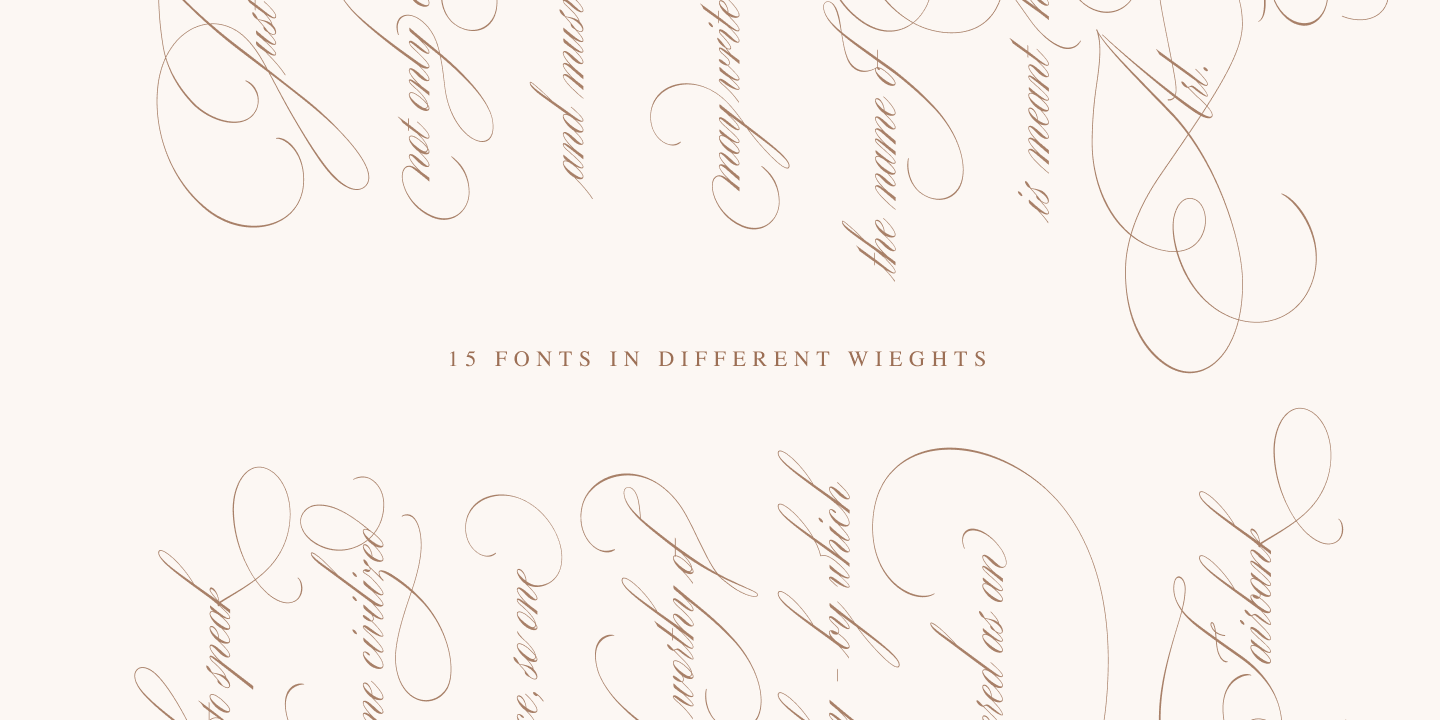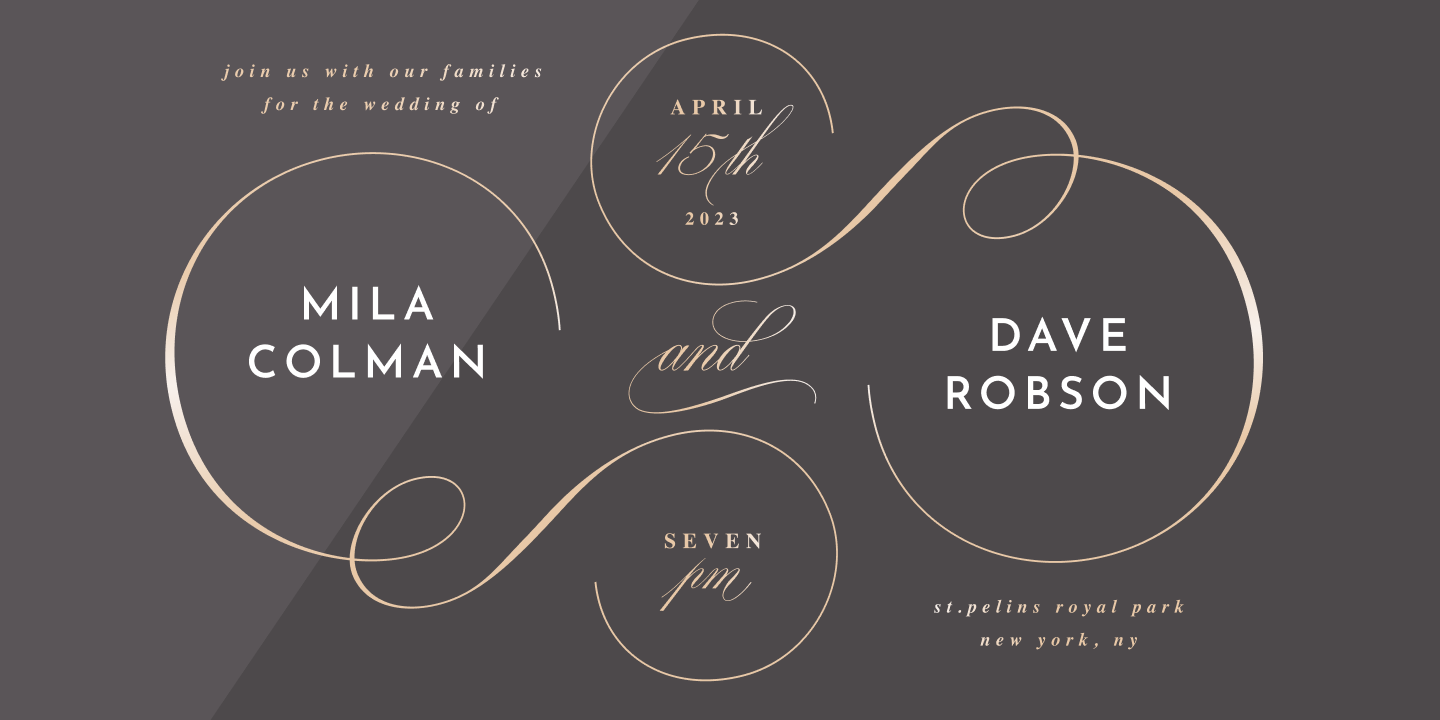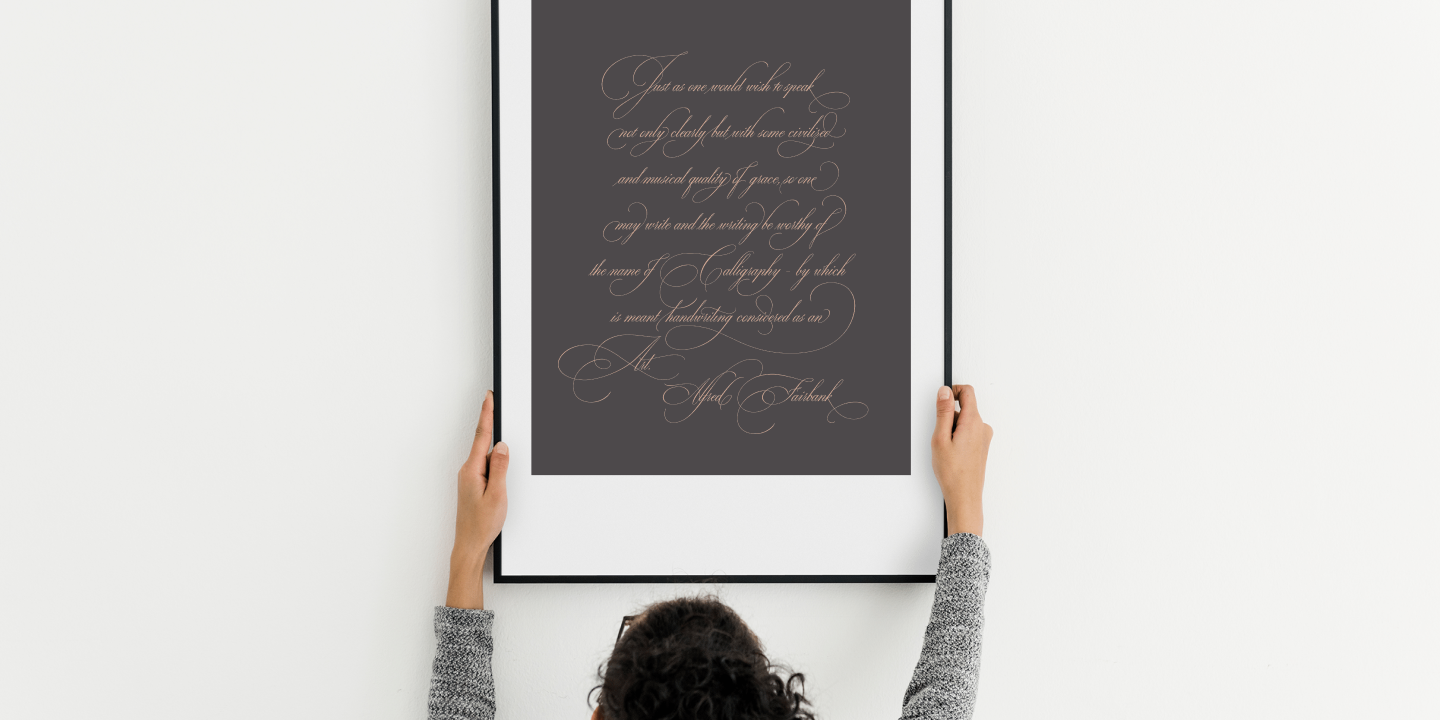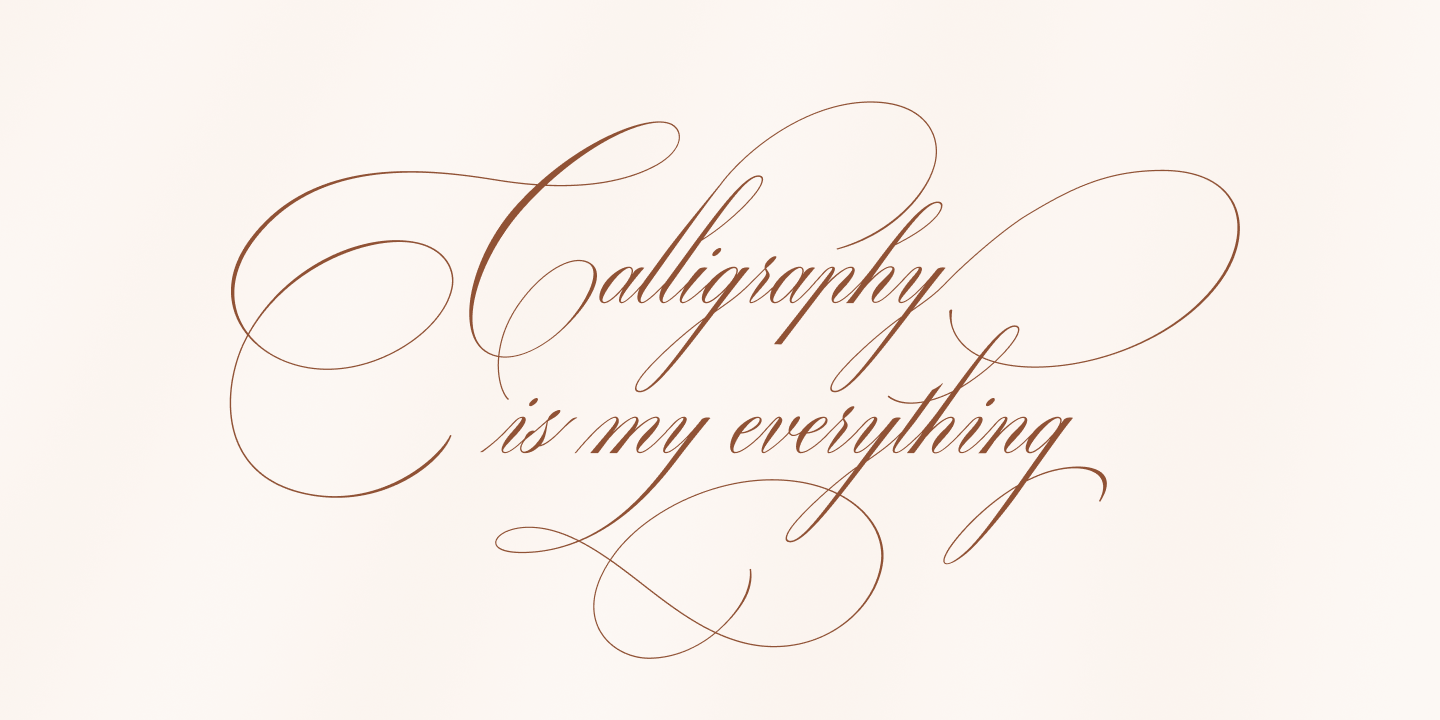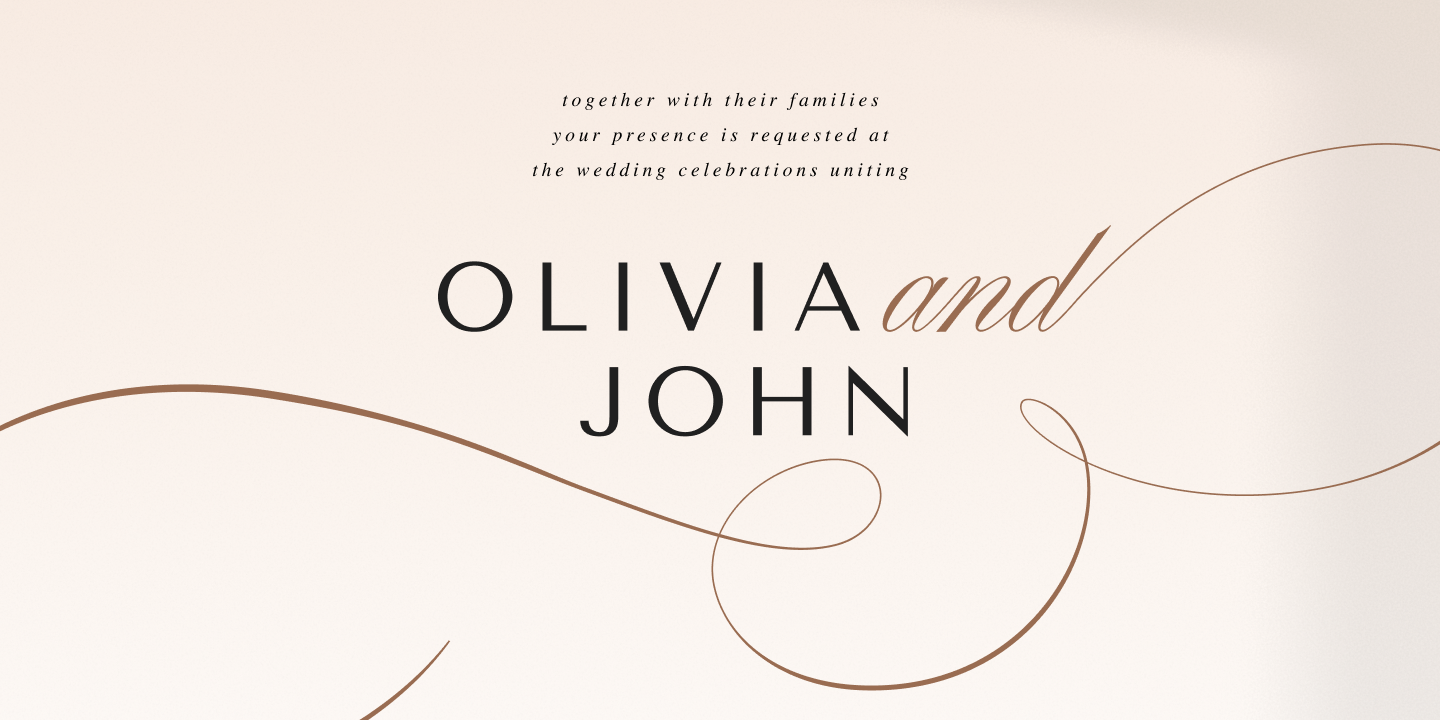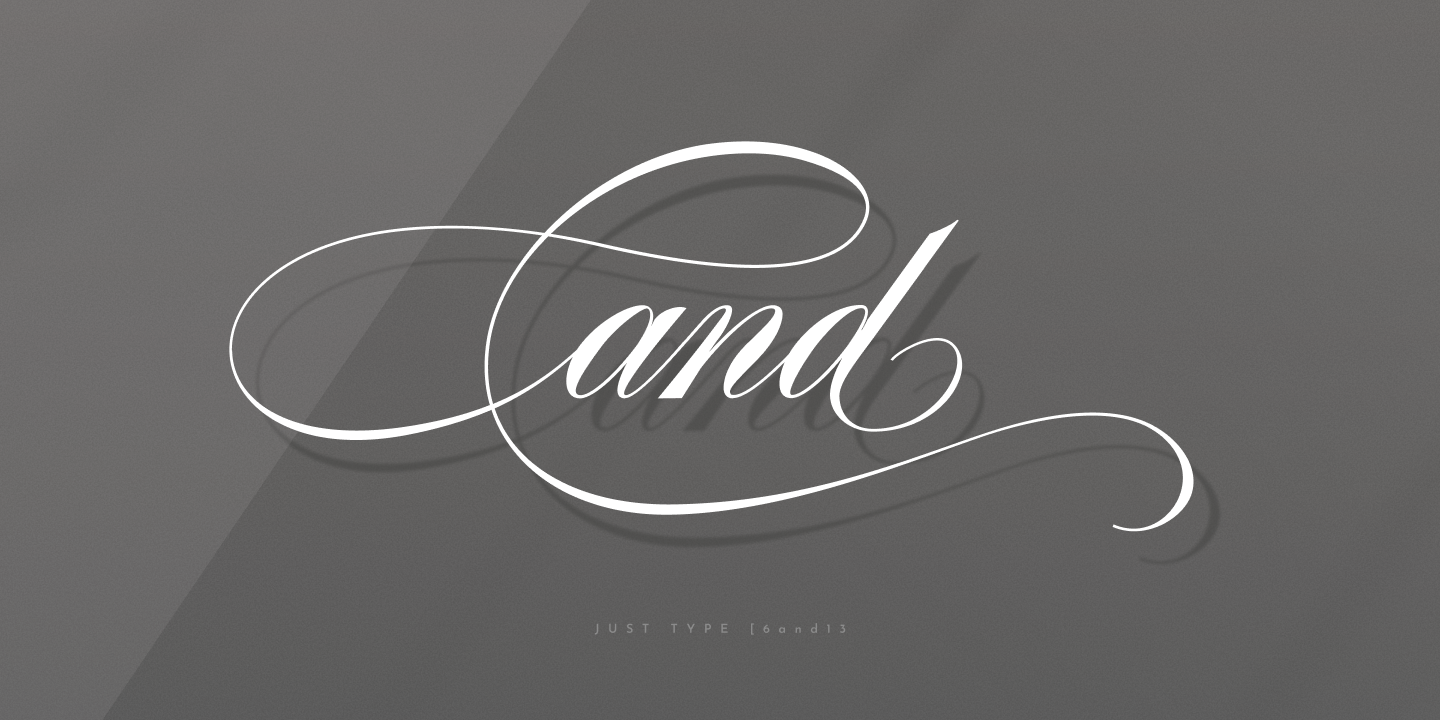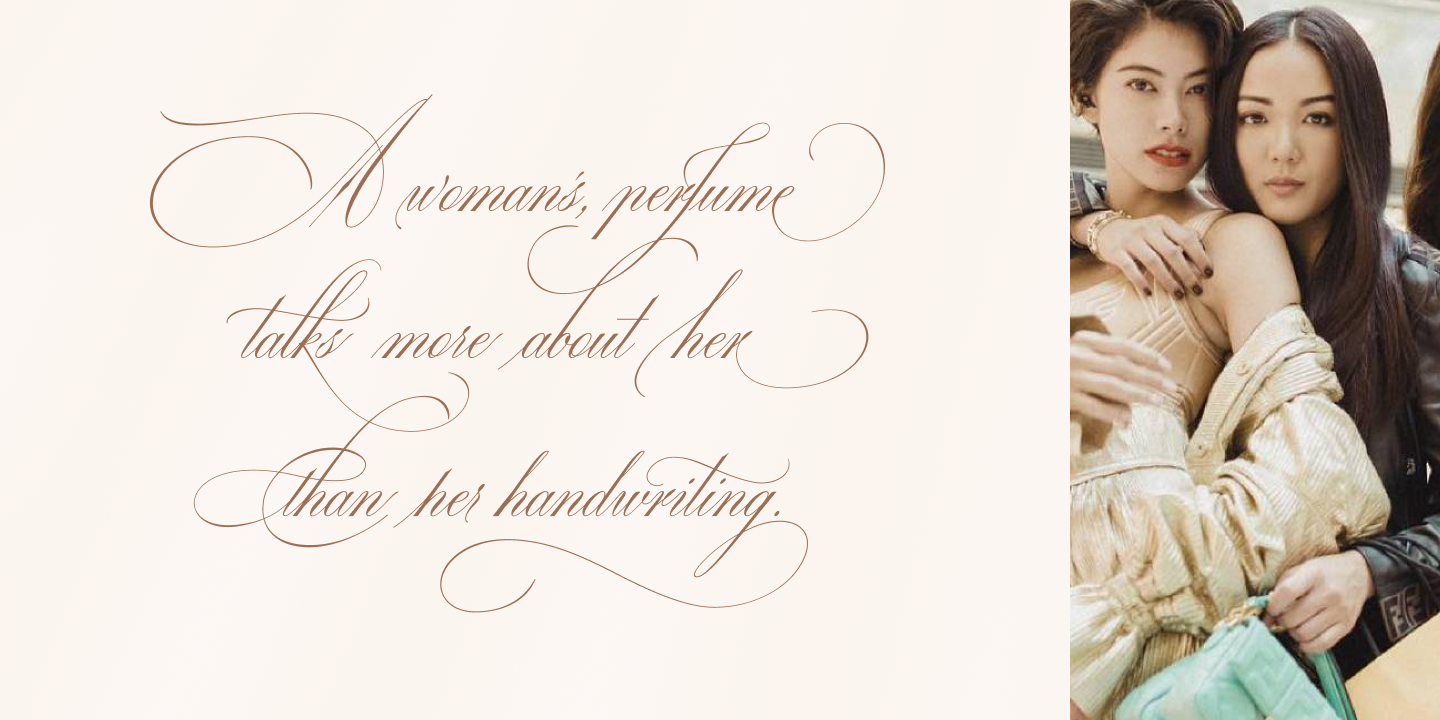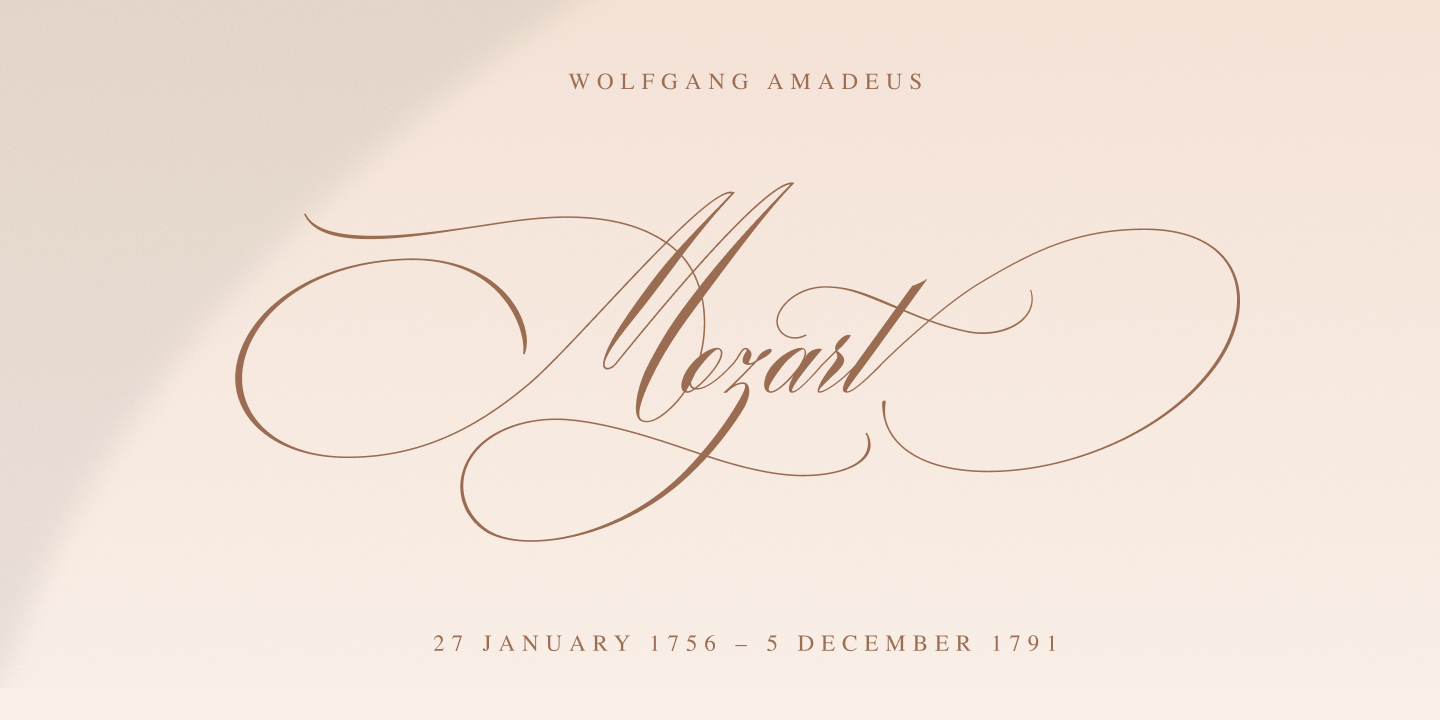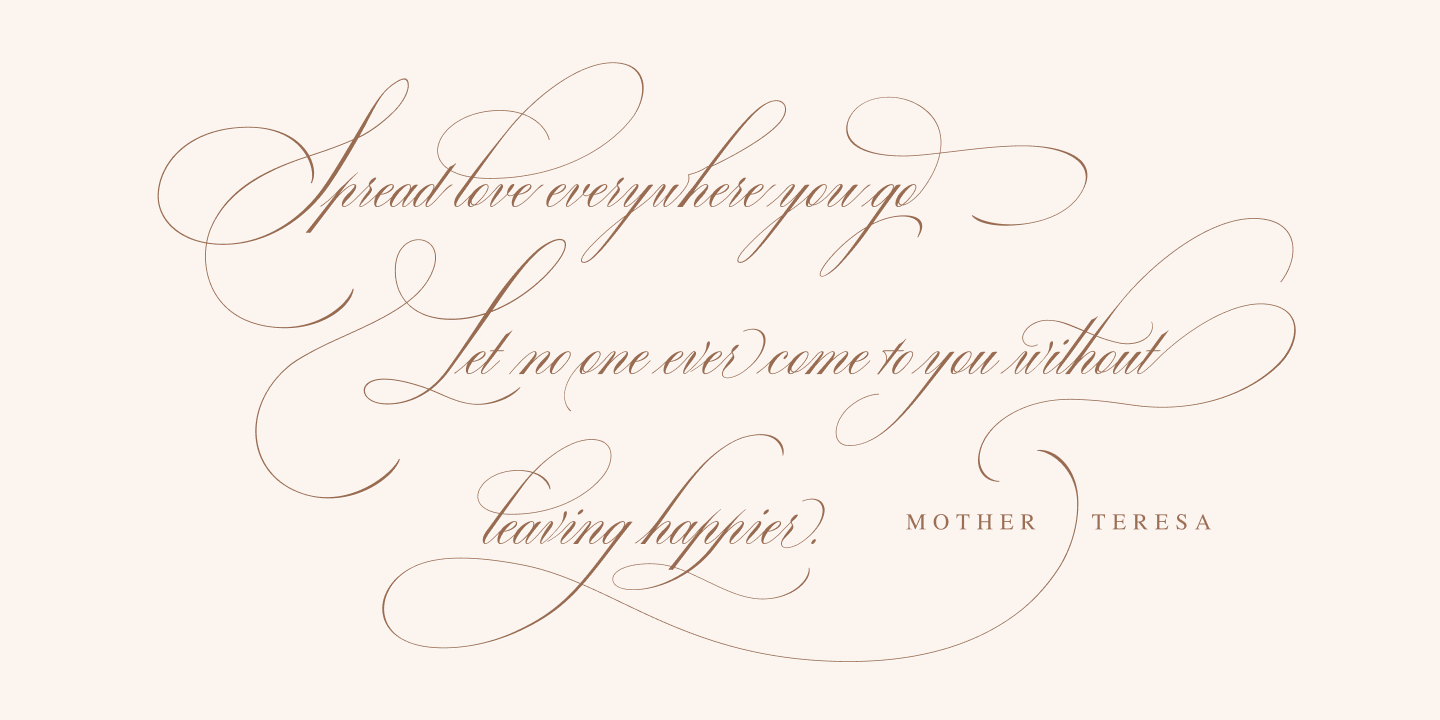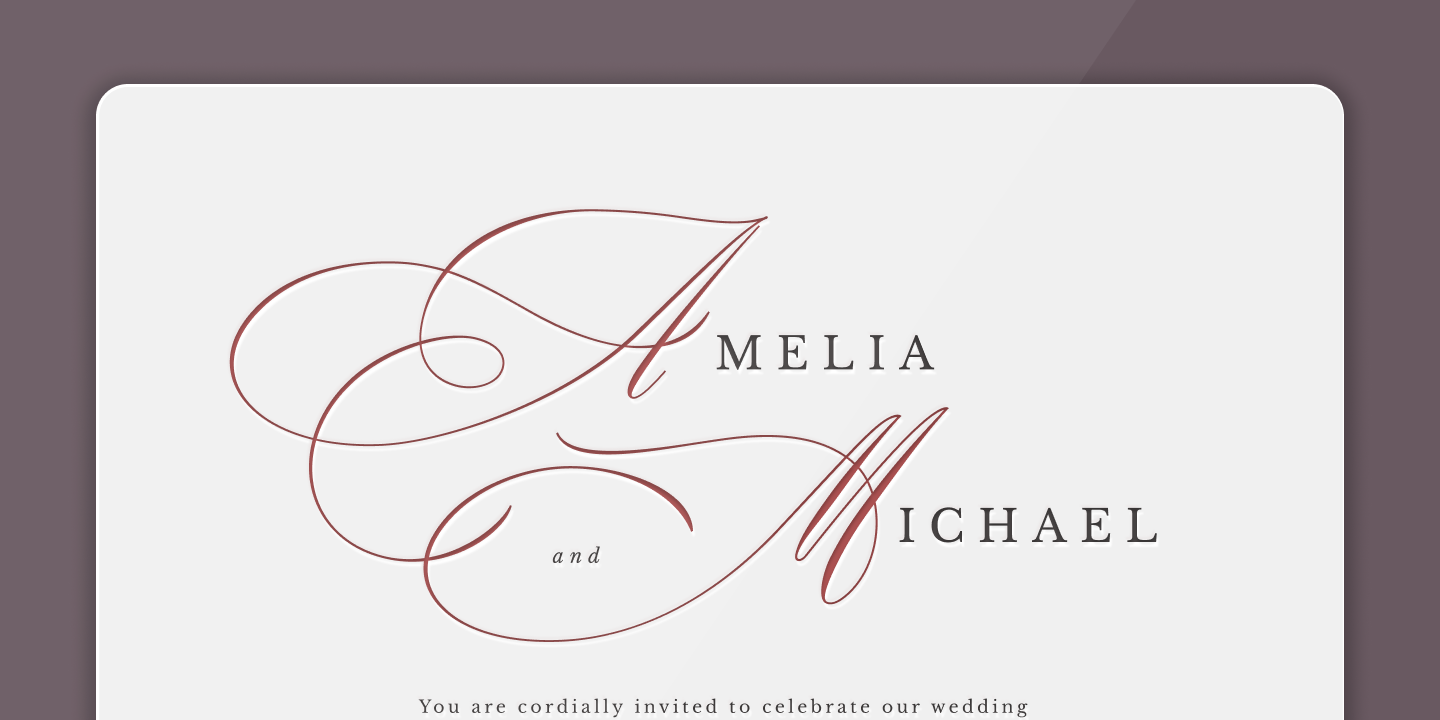
Hi! It took me almost a year to design Ecatherina script. Finally it is available to purchase! Ecatherina script is an opentype font-family (15 fonts: 5 styles for 3 line thickness) with a bonus (editable wedding invitations, menu, quotes, letters, and more)
Absolutely easy, just type a number after any letter: a1, a2, a3 etc
Capital letters have 3-4 options and more. So just type E1, E2, E3 etc and find your favourite one!
BP-Ecatherina-Ex1 The only difference between previous font is that thin line is a bit thicker.
BP-Ecatherina-Ex2 Even more thicker line.